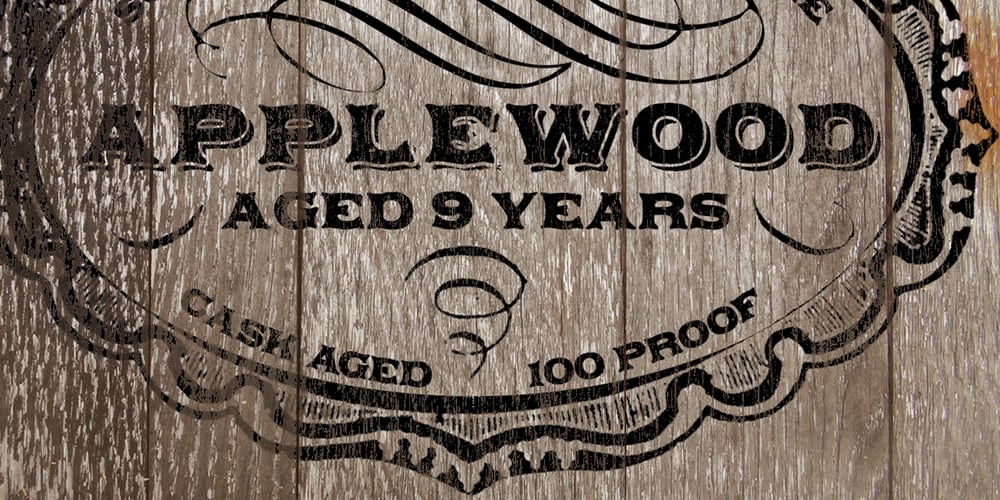
Applewood
Applewood font
Applewood Font Family was designed by Stephen Miggas and published by Aerotype. Applewood contains 3 styles and family package options. The Applewood family uses the OpenType ligature feature to substitute a unique pairing of characters when any upper or lower case letter is keyed twice in a row. The Applewood Shadow font can be overlapped with Applewood Alternate to color the drop shadow separately. All fonts also support Eastern European Latin, Baltic, Greek and Turkish.